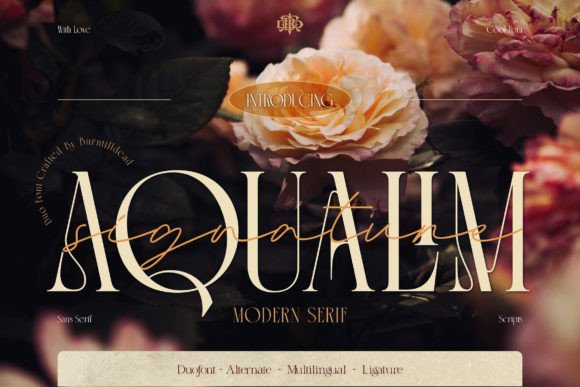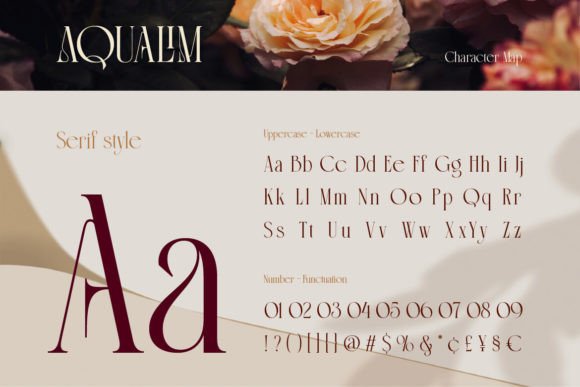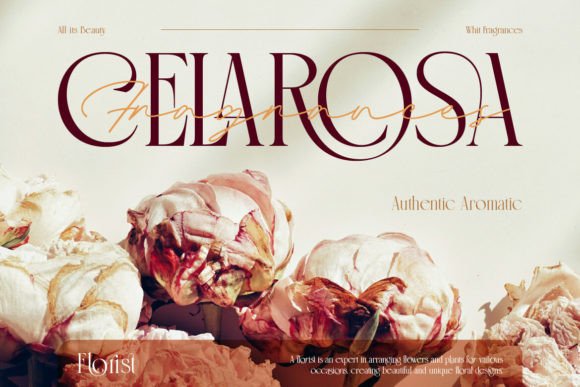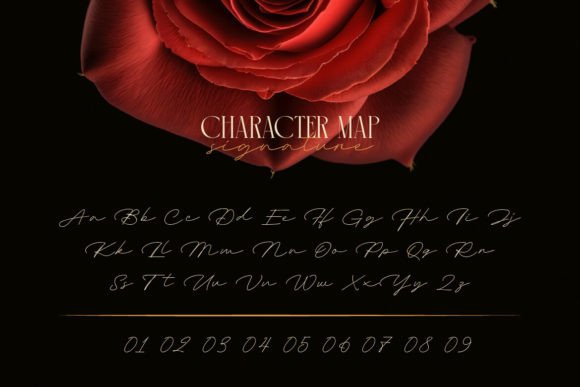
Aqualim Signature Font
About the Aqualim Signature Font
Experience the unique personality of Aqualim Signature Font, a font designed for impact. Aqualim Signature, when classic of serif meets the elegance of script. This duo font bring the aesthetic of classy and luxury look so its perfectly suit for headline, logo, covers, posters, quotes, magazine, wedding invitation, product packaging, merchandise, social media, marketing materials and many more!
Aqualim Signature’s elegant, yet slightly playful personality makes it ideal for headlines, logos, and short-form text across branding materials, packaging, and social media graphics. Its refined script elements lend themselves well to wedding invitations and luxury product promotions. However, avoid using it for body text or lengthy paragraphs; its decorative nature compromises readability in extended use.
Consider pairing Aqualim Signature with a clean sans-serif like Open Sans for a modern contrast, or a classic serif like Garamond for a more traditional feel. For a touch of playful sophistication, a geometric sans-serif such as Montserrat would also complement its curves effectively.
The font’s inherent luxury and sophistication make it unsuitable for projects requiring a minimalist or overtly informal aesthetic. Its strength lies in conveying a sense of refined quality and timeless appeal.
Aqualim Signature Font Usage Examples
Aqualim Signature Font Example